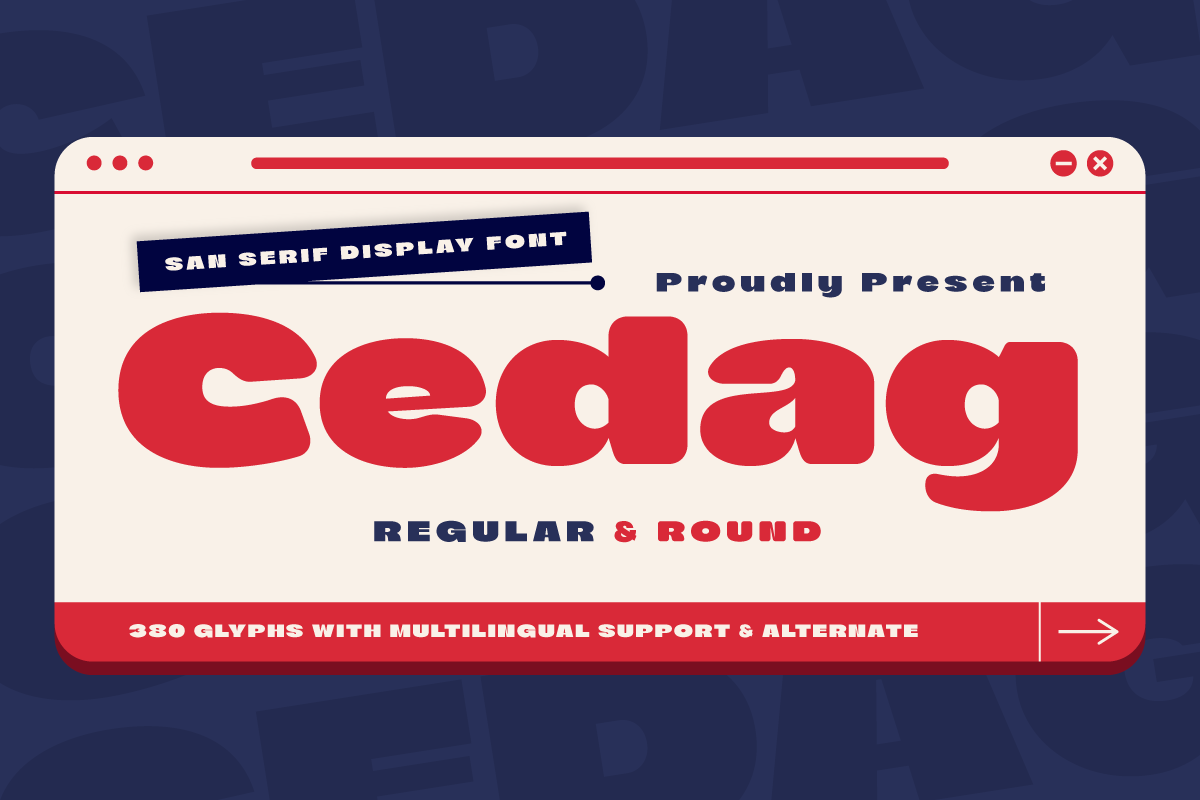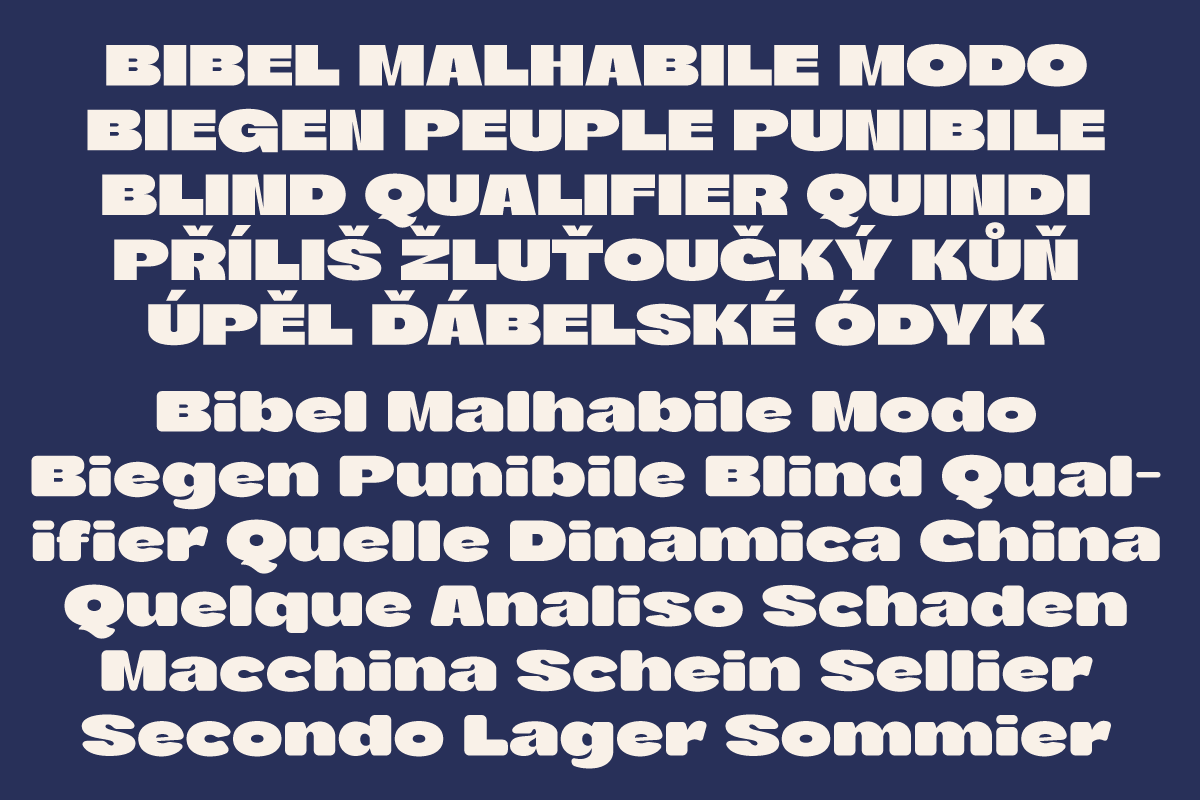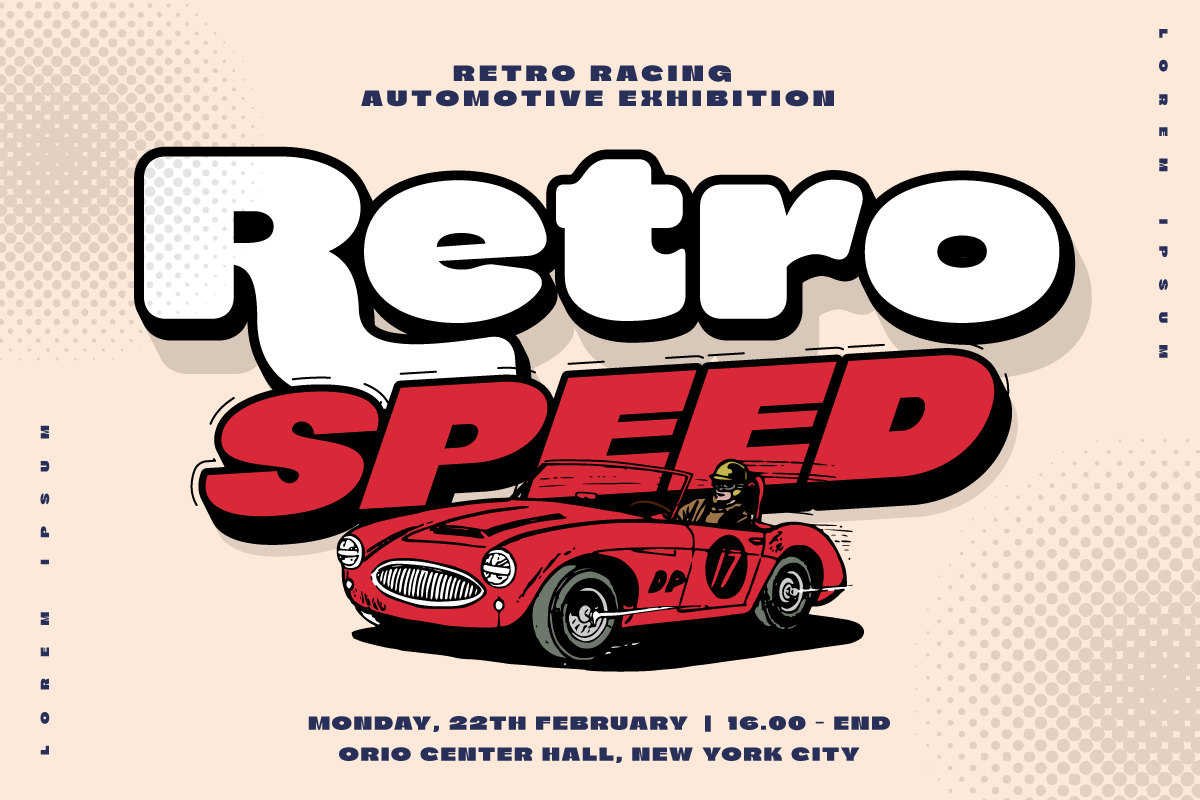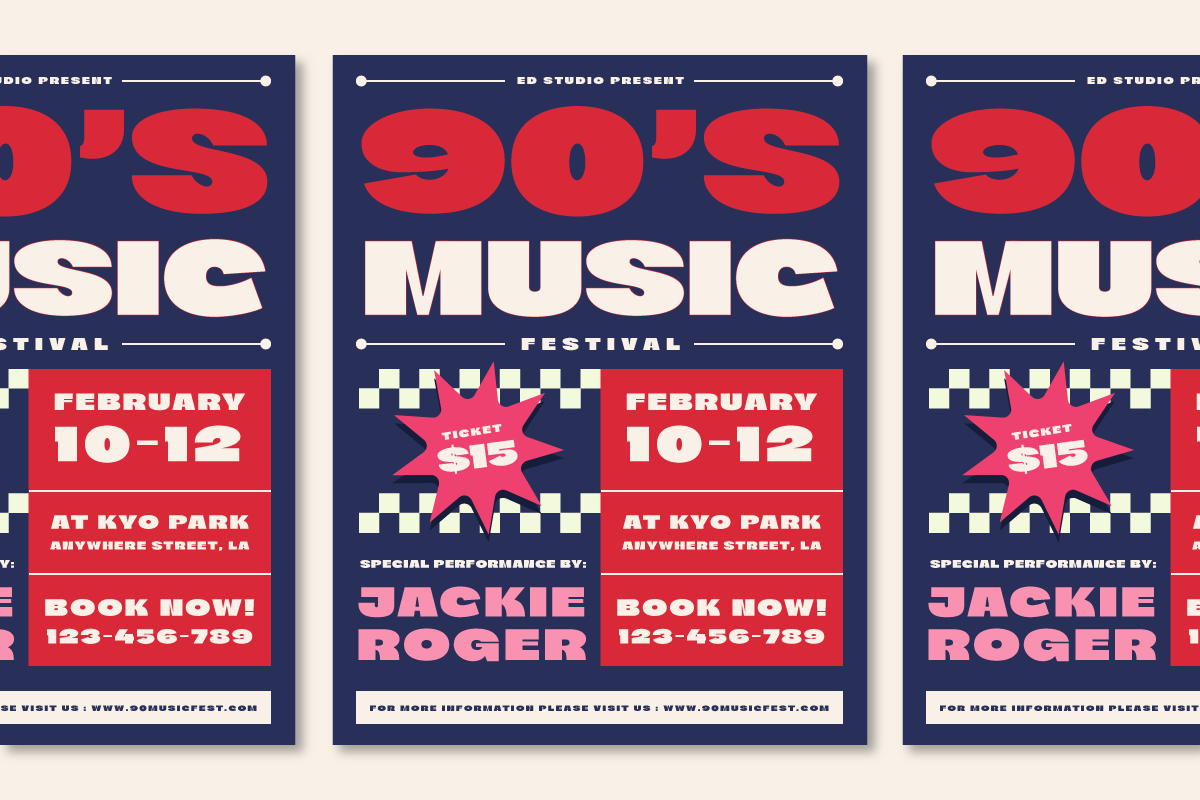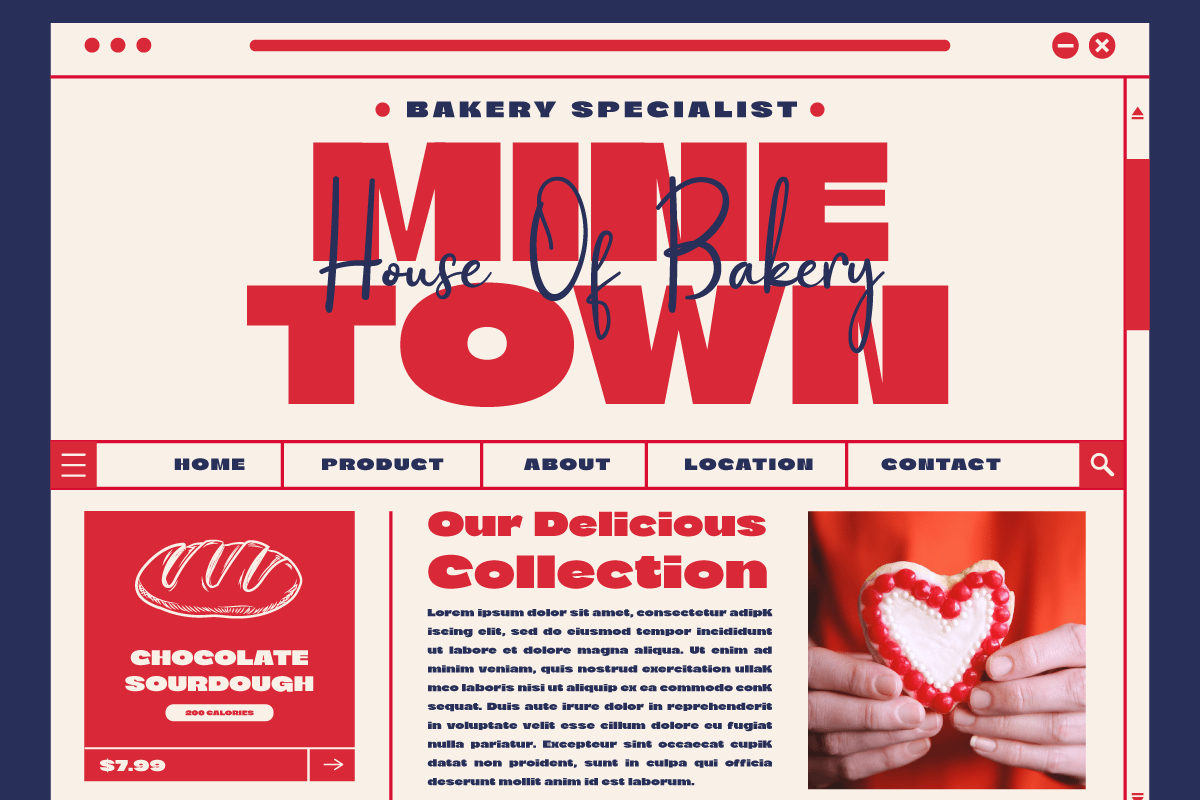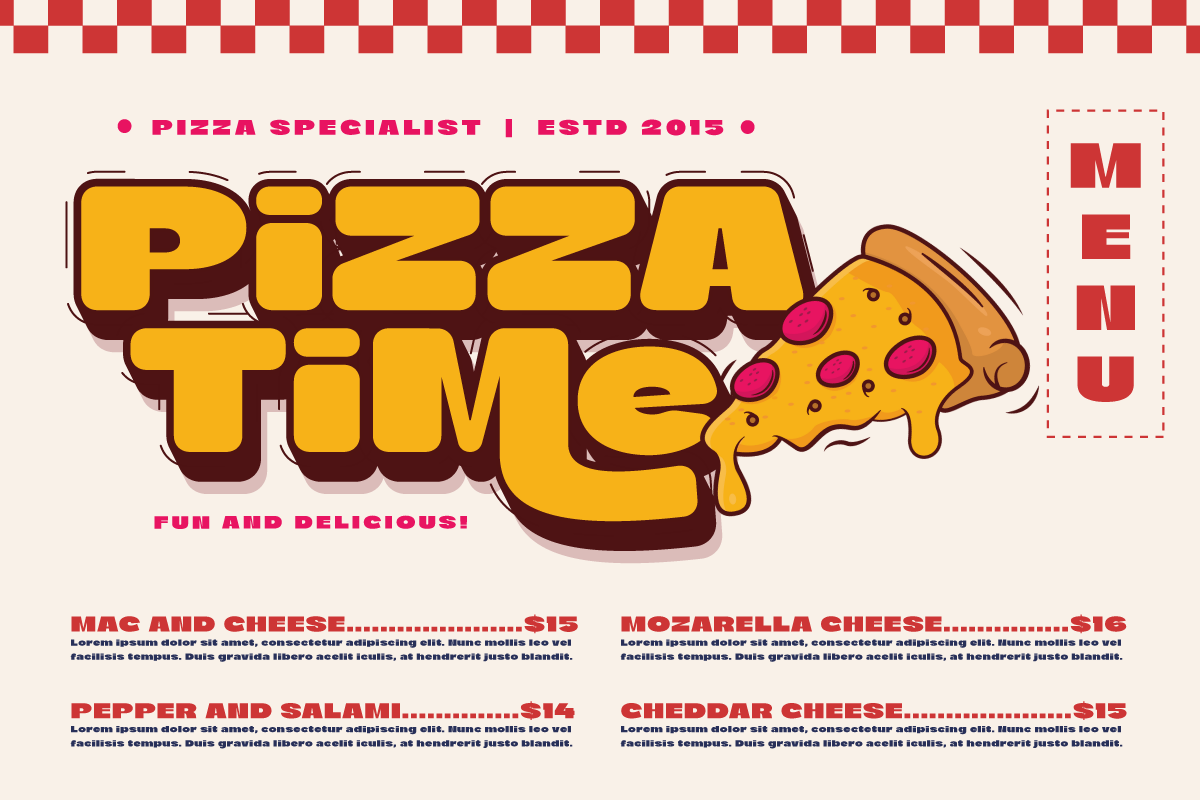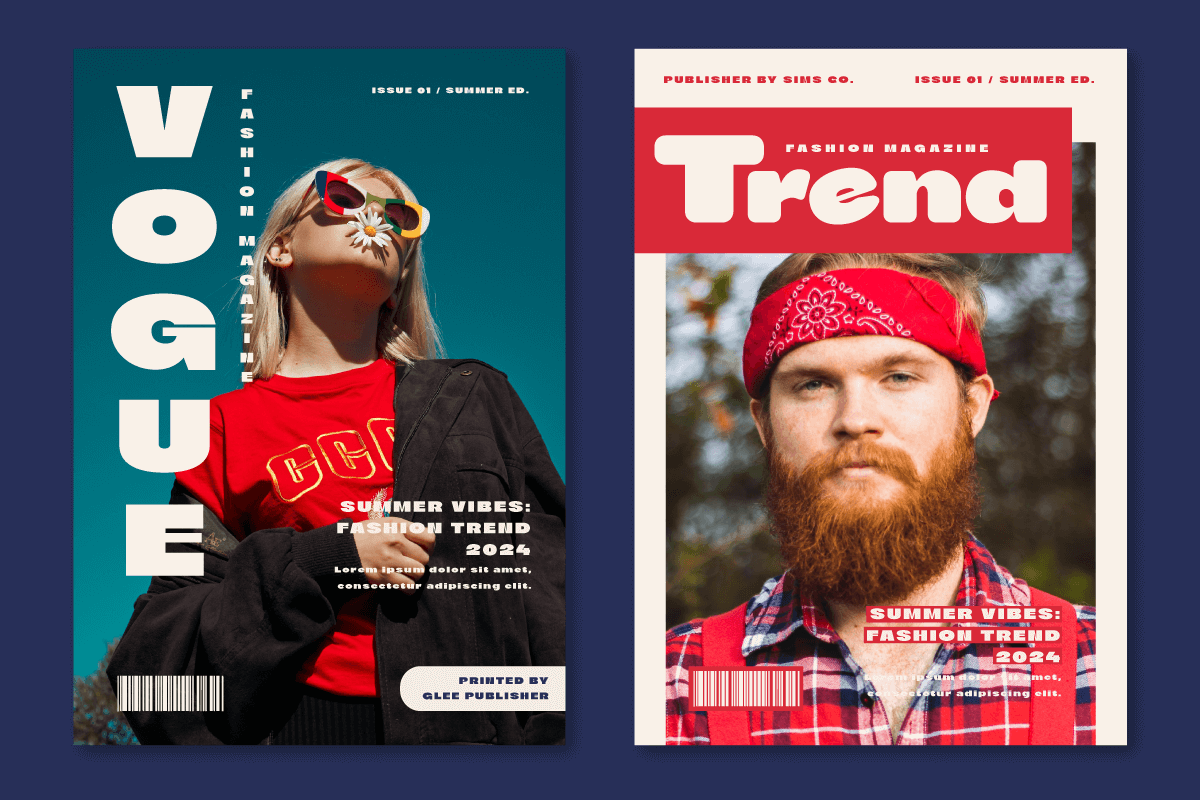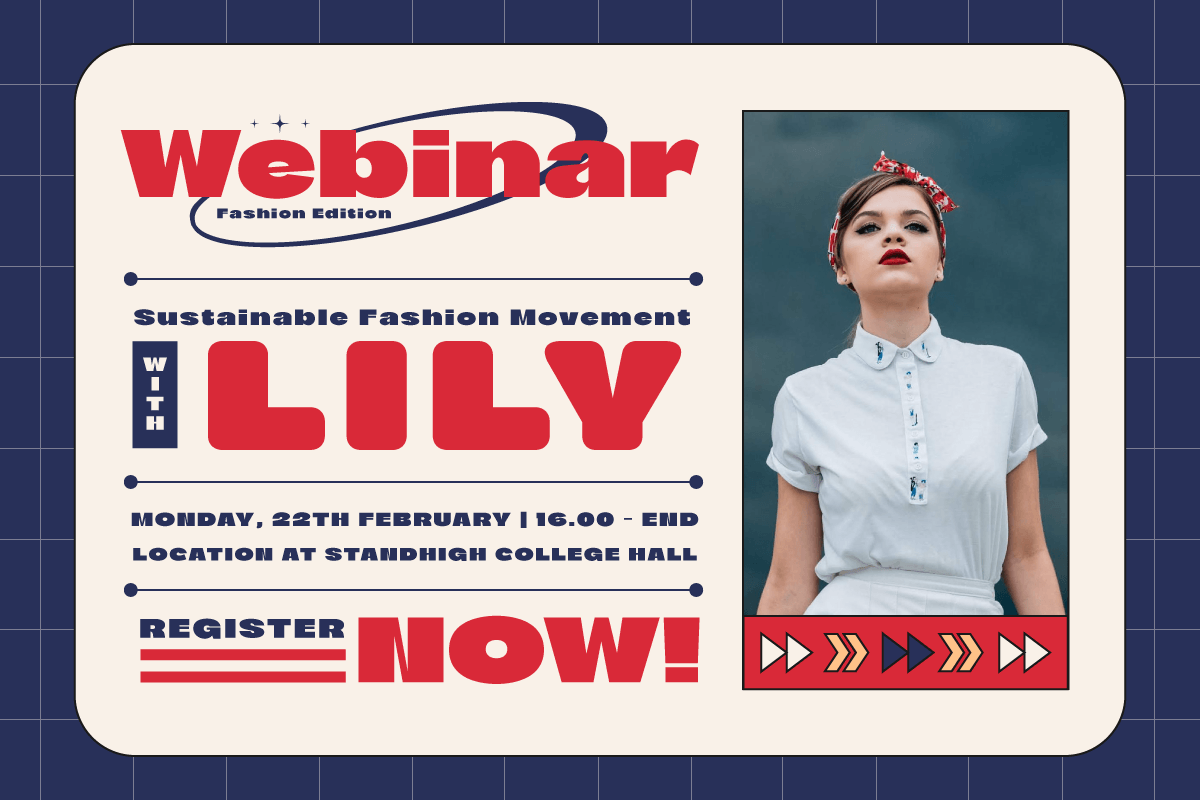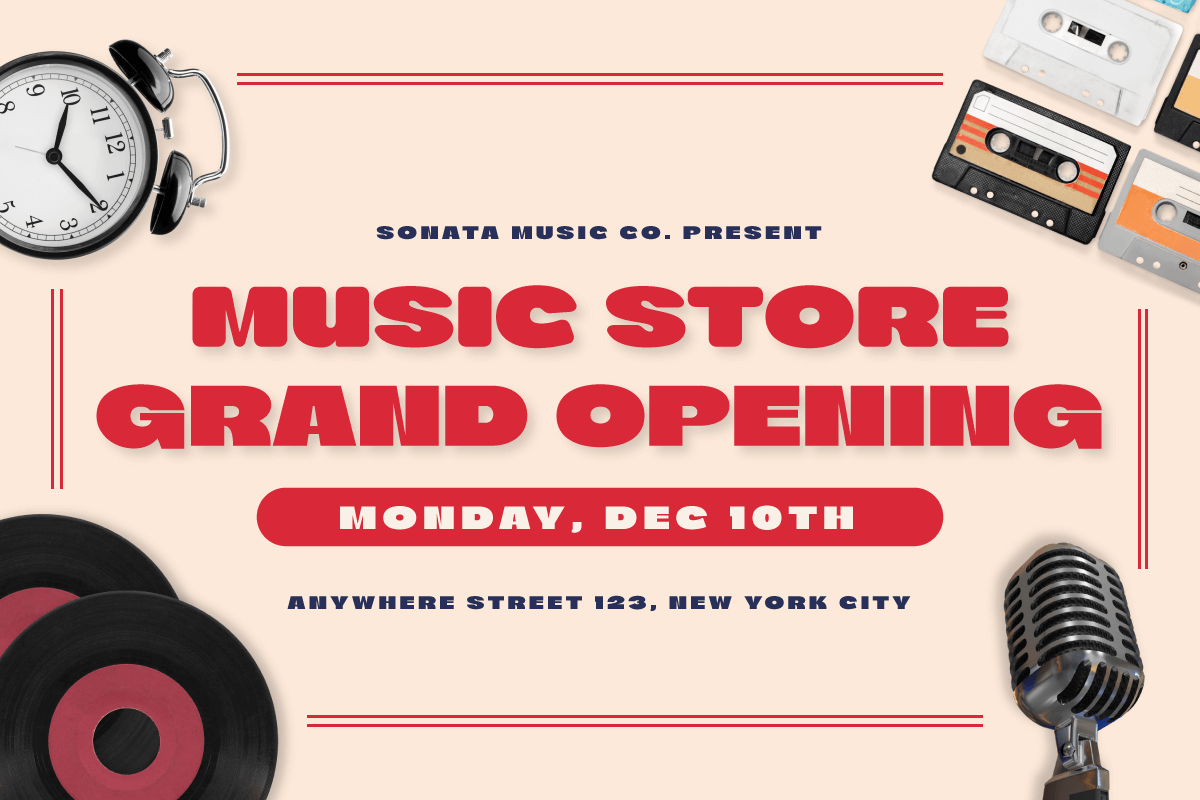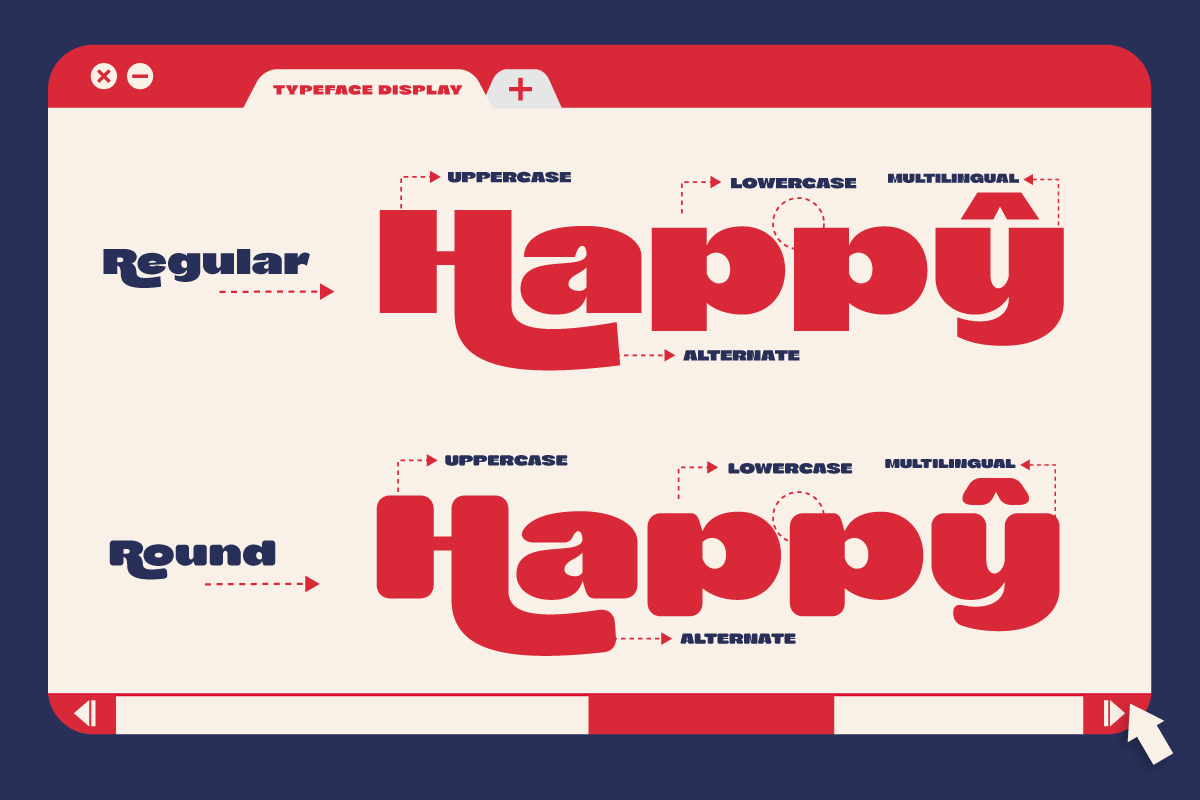
Cedag – San Serif Font
Introducing Cedag, a stunning Display San serif font that exudes elegance and boldness. The font boasts two unique families, regular and round, both offering a modern twist to a classic look. With its sleek and stylish design, Cedag is perfect for any project that requires a confident and sophisticated aesthetic.
The regular family features a classic San serif style with a modern twist, while the round family has a bolder, more playful look. And with multilingual support, you can use Cedag for projects around the world.
Whether you’re designing a logo, branding materials, or any other creative project, Cedag is a versatile and impressive font that will elevate your work to the next level. Its bold and confident style is perfect for any modern design, making it a must-have for any designer or creative professional.
• All glyphs Iso Latin 1
• Ligature, Alternate
• Fonts include Multilingual support